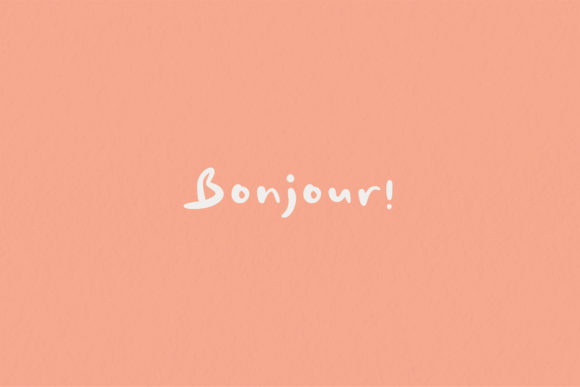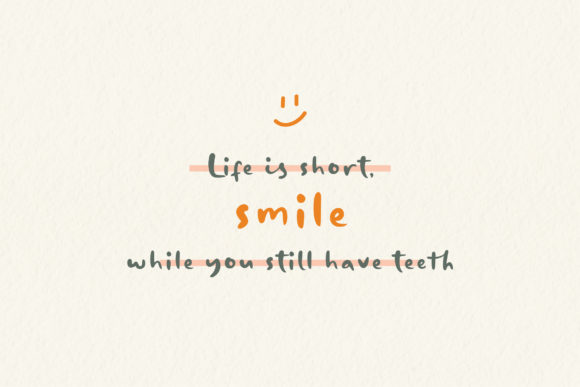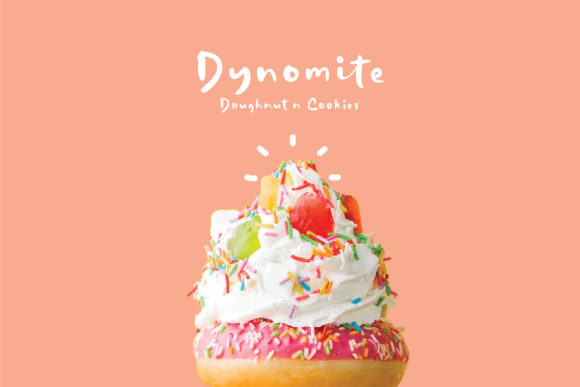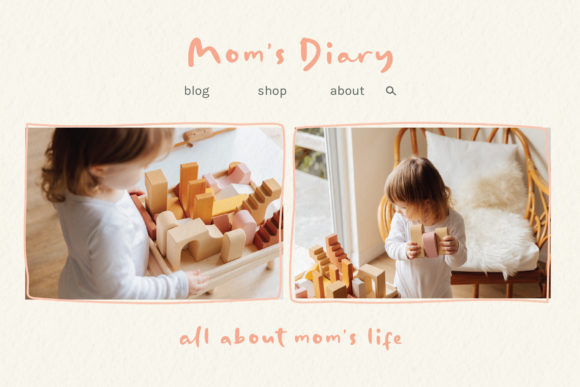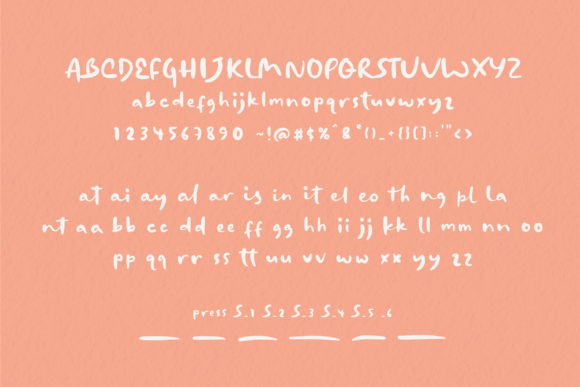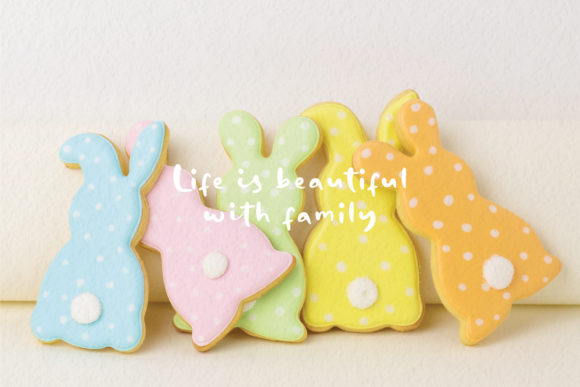
Introduction to Pinkepeach Font
Do you remember the thrill of creating your first chalkboard quote as a kid? The feeling of using a piece of chalk to write out your favorite phrase or quote on a worn-out chalkboard, only to admire the imperfect, handwritten letters? As designers, we often strive to recreate that same charm in our digital designs. That’s where the Pinkepeach Font comes in – a free download that’s perfect for adding a personal touch to your creative projects.
With its authentic look and feel, the Pinkepeach Font is an invaluable design resource for anyone looking to add a realistic, handwritten element to their designs. Whether you’re working on a teaching material or a chalkboard-inspired graphic, this font is sure to bring a high-quality, transparent background look that will elevate your design to the next level.
Key Features of Pinkepeach Font
- Unique Hand-Drawn Design: The Pinkepeach Font features a distinctive hand-drawn style that adds a personal touch to any creative project.
Honest Review: Pinkepeach Font
I recently stumbled upon the Pinkepeach Font and was excited to give it a try. As a designer, I’m always on the lookout for high-quality fonts that can elevate my creative projects. The Pinkepeach Font did not disappoint.
- ✨ High quality: The font is crisp and clear, making it perfect for both digital and print projects.
- ✨ Transparent background: This allows for seamless integration with other design elements, giving me more creative control.
- ⚠️ Limited font styles: The Pinkepeach Font only comes in a few styles, which may not be suitable for more complex design projects.
- ⚠️ Not ideal for small text: Due to its bold design, the font may not be the best choice for small text or body copy.
Overall, I’m impressed with the Pinkepeach Font and would recommend it for creative projects that require a high-quality, eye-catching font. Its transparent background and free download make it an excellent design resource for anyone looking to add some personality to their work.
Common Use Cases for Pinkepeach Font
The Pinkepeach Font is perfect for creative projects, such as social media graphics, flyers, and posters. Its high-quality design and transparent background make it ideal for use on any background.